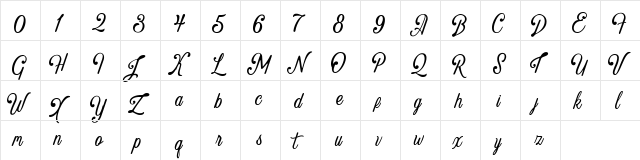
Crawley Regular
Design Context for Crawley Typeface
Crawley is a composed and adaptable typeface that performs quietly and consistently across a wide range of design contexts.
Pro Tip: Pair Crawley with a font of contrasting weight or personality to build a more expressive typographic hierarchy.